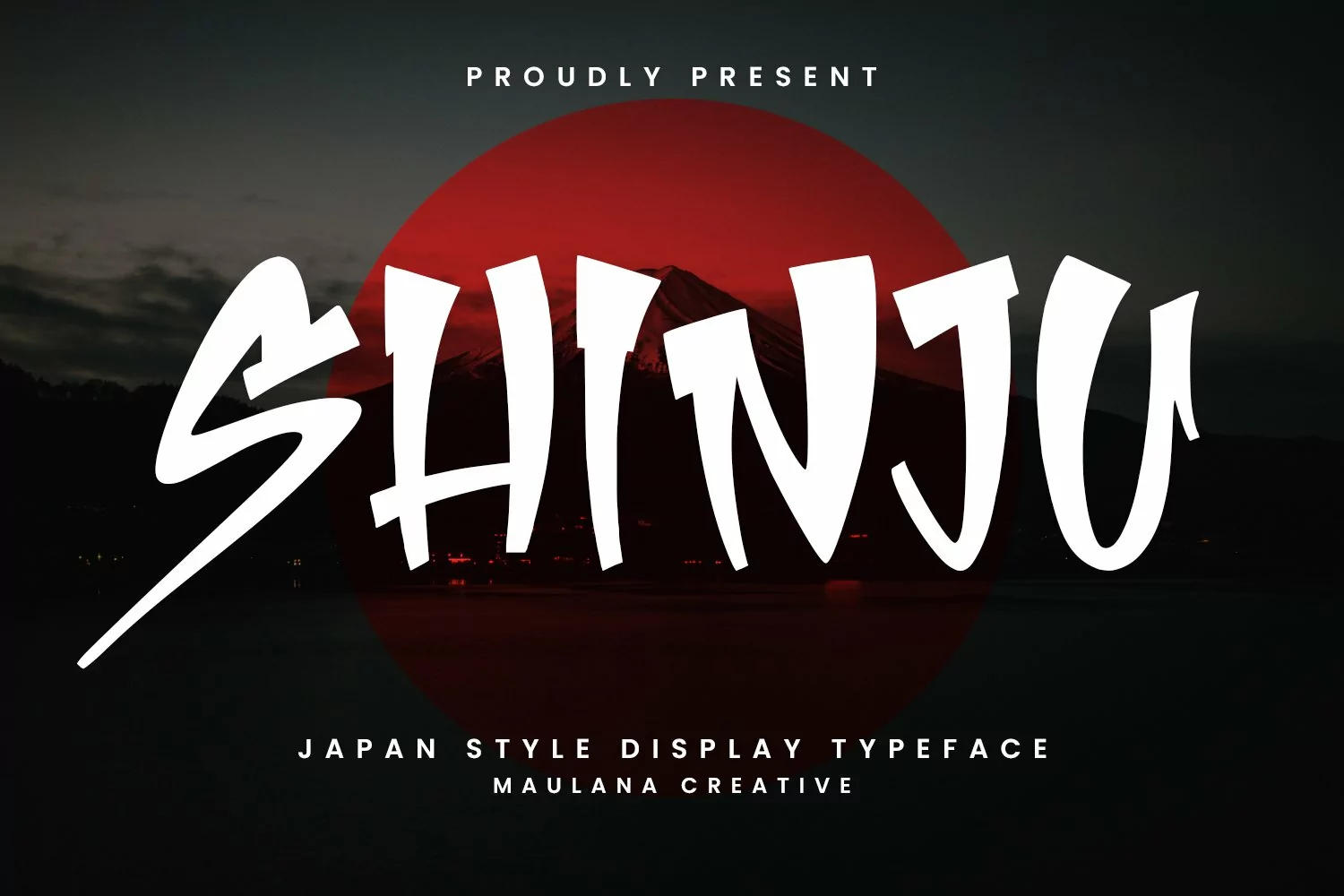
Shinju is a japanese handmade font typeface. Heavy stroke, fun character with a bit of ligatures and alternates. To give you an extra creative work. Shinju font support multilingual more than 100+ language. This font is good for logo design, Social media, Movie Titles, Books Titles, a short text even a long text letter and good for your secondary text font with script or serif. Make a stunning work with Shinju font.